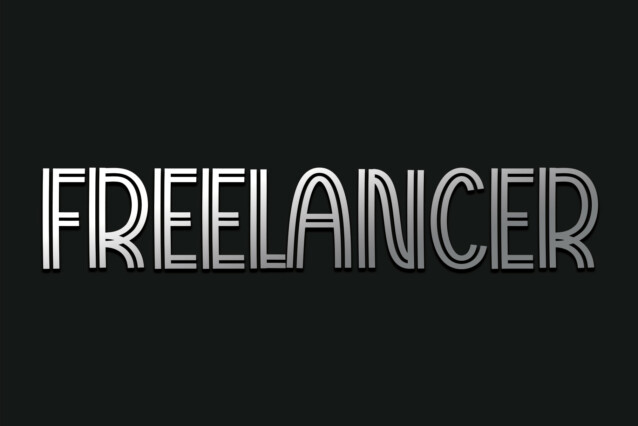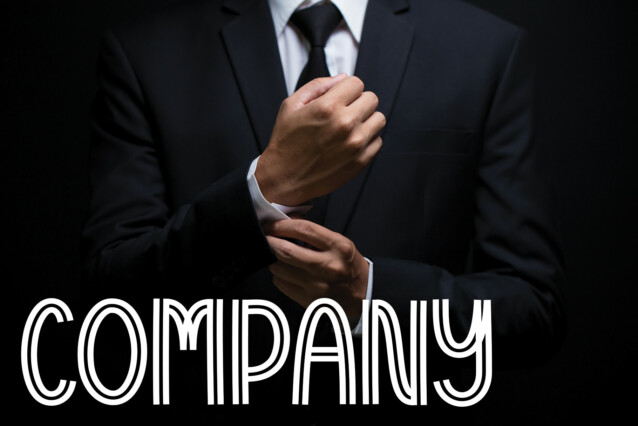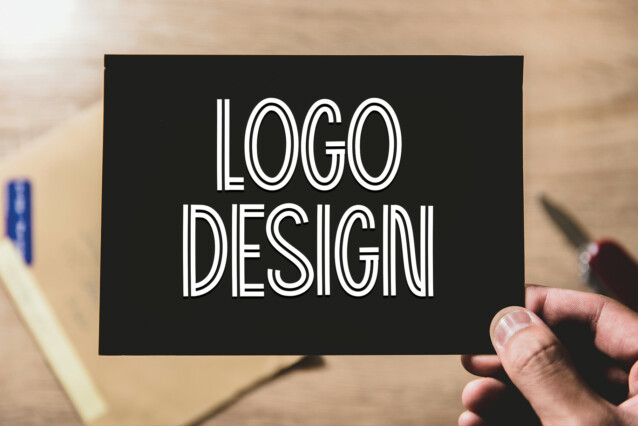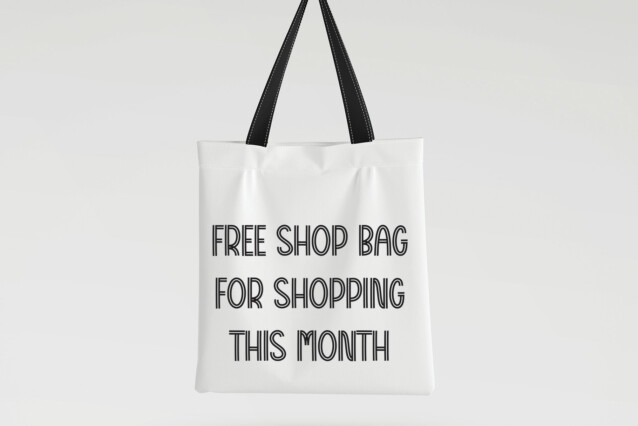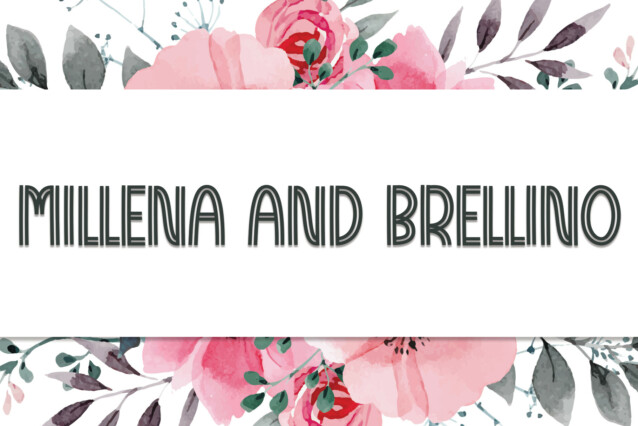
Freelancer Display Font
Freelancer’s latest style letters are perfect for wall displays, wedding invitations, social media post logos, advertisements, product packaging, product designs, labels, photography, watermarks, invitations, stationery, and any project that requires a modern taste.